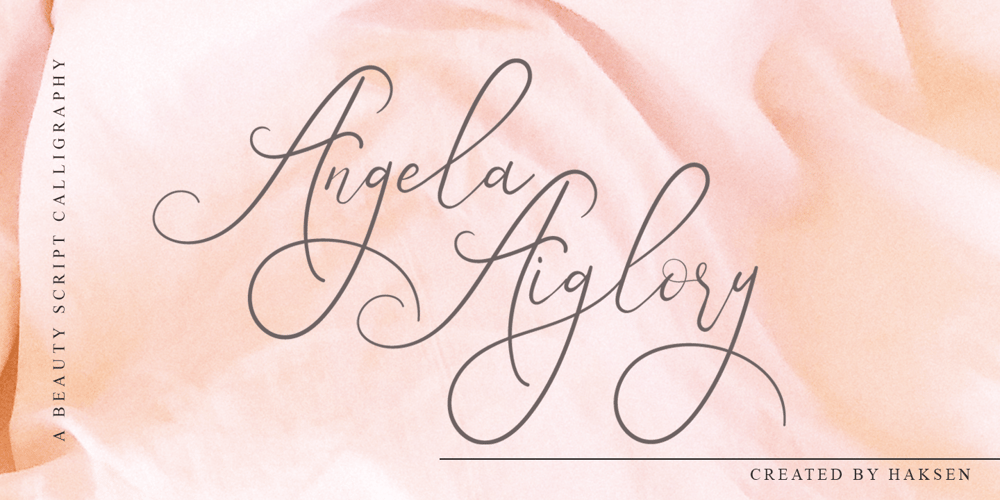
Angela Aiglory Font Family was designed by Sarwo Edhi Prayitno and published by Haksen. Angela Aiglory contains 1 styles and family package options. Hello Everybody,Just launch my New Product “Angela Aiglory” The new fresh handmade script font. Very suitable for greeting cards, branding materials, business cards, quotes, posters, and more! This font are perfect for all brand :)Features :UpperCase & Lowercase Numerals & PunctuationsLigatures Multilingual characters(AÀÁÂÃÄÅCÇDÐEÈÉÊËIÌÍÎÏNÑOØÒÓÔÕÖUÙÜÚÛWYÝŸŸÆŒßÞàáâãäåæçèéêëìíîïðñòóôõöøùúûüýÿ)PUA ENCODEDZIP INCLUDED:Angela Aiglory OTFDon’t forget to visited the other amazing productsThanks for visited and Please contact me if you have any questions.Happy Design,Haksen